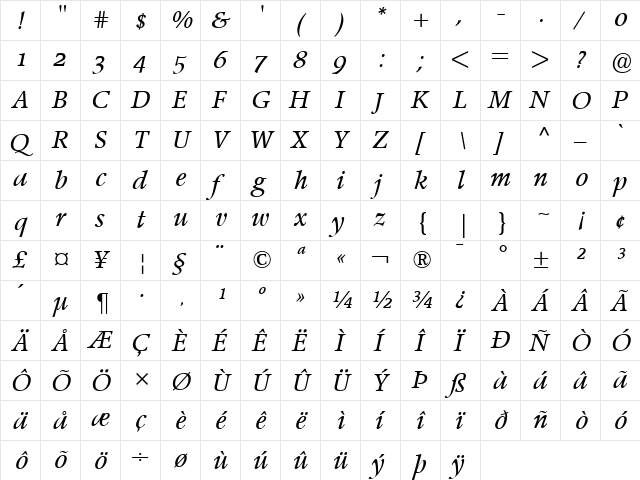
Poppl-Pontifex BE Italic
Design Context for Poppl-Pontifex BE Typeface
Poppl-Pontifex BE takes a measured approach to typography — its balanced proportions and neutral character make it a reliable workhorse for both digital and print work. The slanted form adds forward momentum and visual energy.
Pro Tip: Try Poppl-Pontifex BE for annotation and caption copy alongside an upright companion — the contrast in angle creates a dynamic but ordered typographic system.